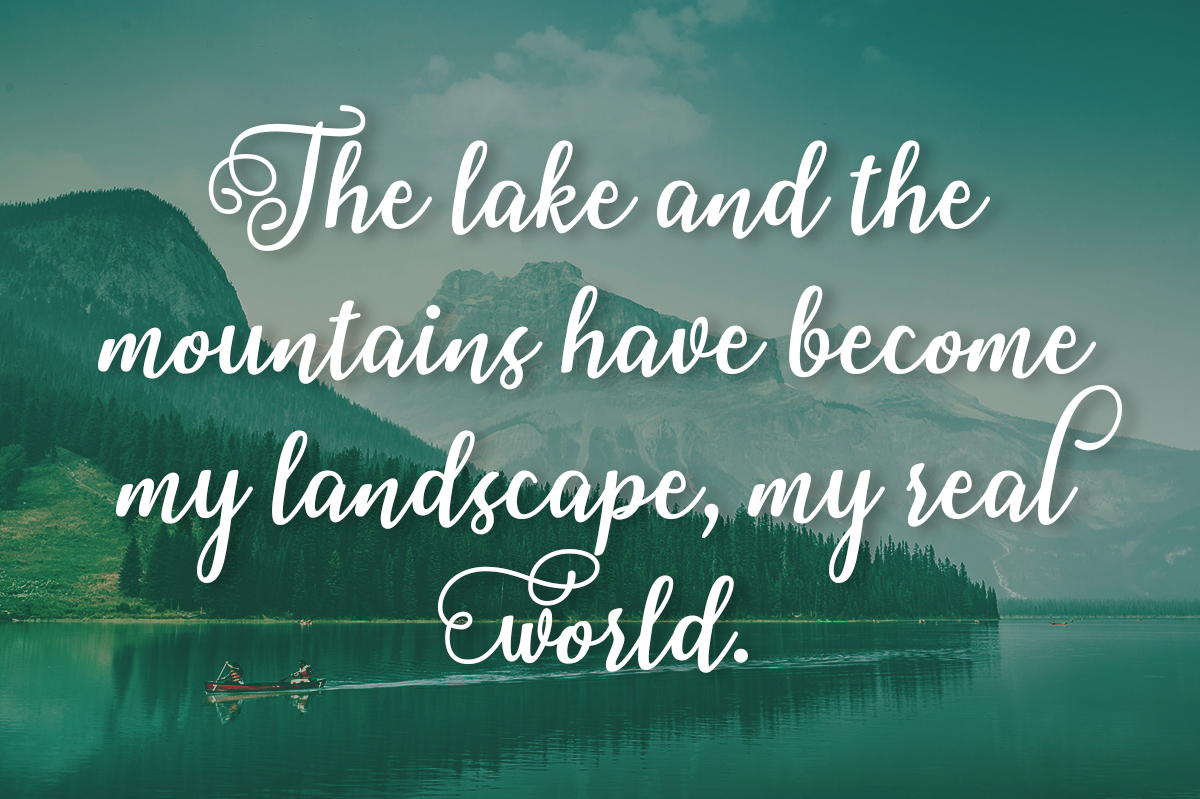
Introduction to Clearwater Lake Font
Clearwater Lake is a beautiful and ornate script font, perfect for a wide range of designs.
This stunning calligraphy font encompasses classic and contemporary approaches to script typography, and can give your designs a cohesive feel .
Clearwater Lake Font offers exceptional quality and versatility, making it a valuable addition to your design toolkit. Whether you’re creating for personal projects or commercial use, Clearwater Lake Font delivers professional results.